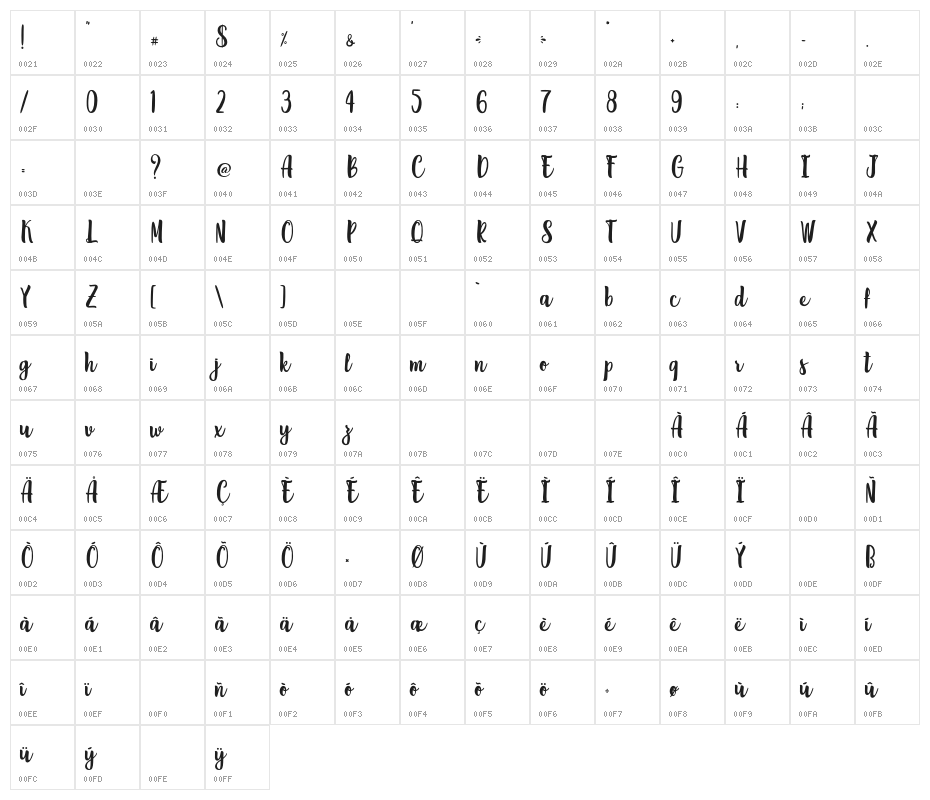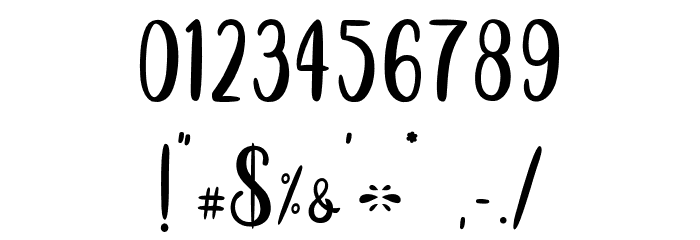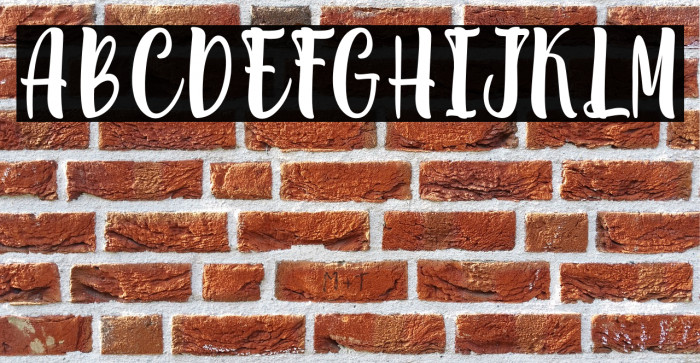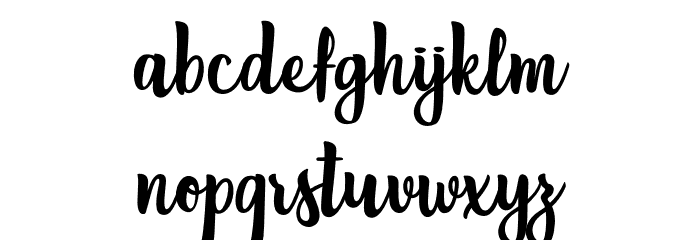
FatInlovePersonalUse Font
FatInlovePersonalUse Description
This font features a playful and bold script style with a handwritten feel. The uppercase letters are tall and slightly narrow, with a whimsical flair that adds personality to each character. The lowercase letters maintain a consistent flow, enhancing the font's casual and friendly appearance. Numbers are clear and easy to read, while special characters retain the same playful style. The overall design is cohesive, making it suitable for projects that require a touch of fun and creativity.